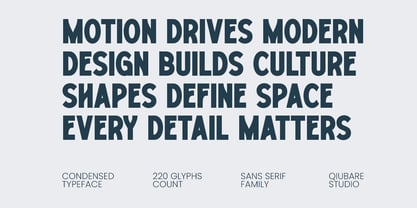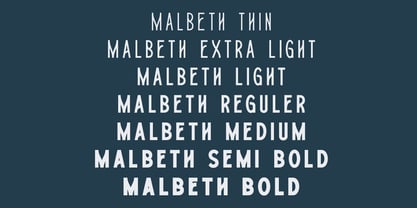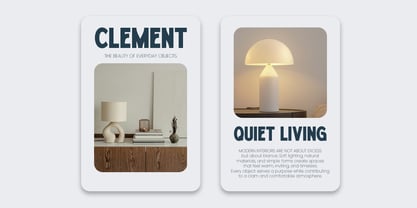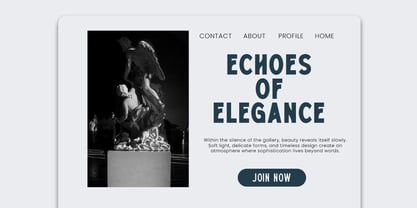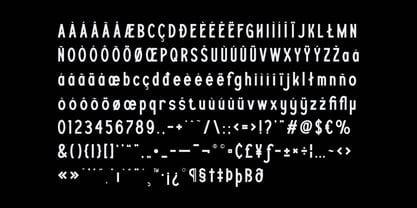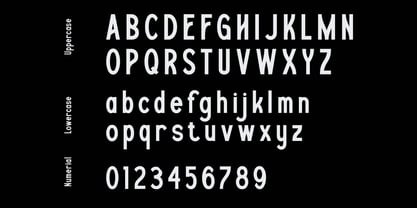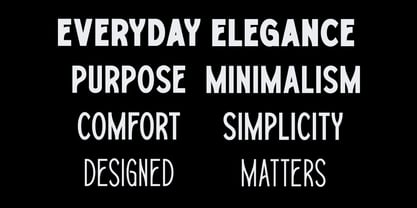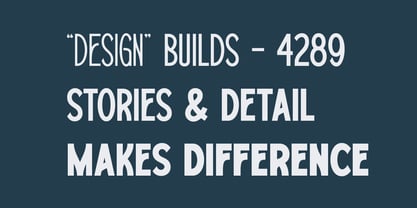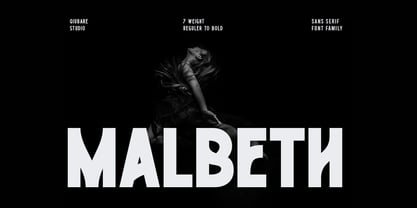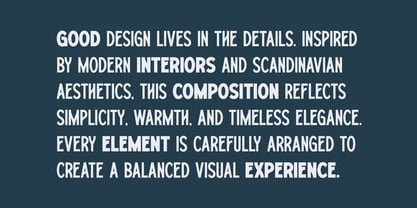
Malbeth
Introducing Malbeth, a modern condensed sans serif font family created to deliver strong visual impact with clean and elegant proportions. Designed with contemporary aesthetics in mind, Malbeth combines minimalist forms with powerful typography, making it perfect for branding, editorial design, packaging, posters, websites, and modern visual identities.
Malbeth includes 7 carefully crafted weights, ranging from Thin to Bold, allowing designers to create flexible typographic hierarchies while maintaining consistent style across projects.
Its condensed structure makes it ideal for large headlines, magazine covers, posters, luxury branding, social media graphics, packaging, UI design, and creative advertising. The tall letterforms create a sophisticated appearance while maximizing space efficiency.
Included Weights:
• Thin
• Extra Light
• Light
• Regular
• Medium
• Semi Bold
• Bold
Features:
• 7 Font Weights
• Condensed Sans Serif Family
• Uppercase & Lowercase
• Numerals & Punctuation
• Multilingual Support
• 220+ Glyphs
• Modern & Minimal Design
• Perfect for Branding and Editorial Projects
Perfect For:
• Branding
• Logo Design
• Editorial Layouts
• Magazine Covers
• Posters
• Packaging
• Social Media
• Website Headers
• UI/UX Design
• Advertising
• Fashion Branding
• Interior Design Projects
Malbeth offers a balance between modern minimalism and bold expression, making it an excellent choice for designers seeking a versatile condensed typeface with a premium contemporary appearance.